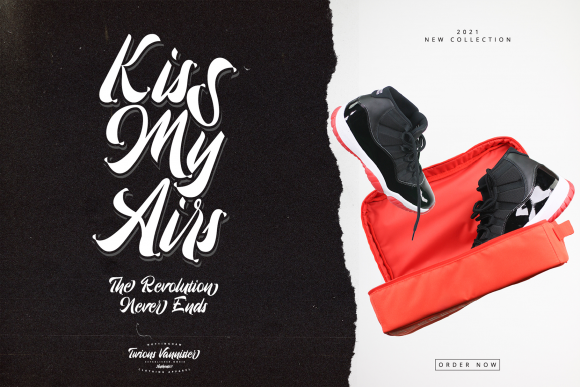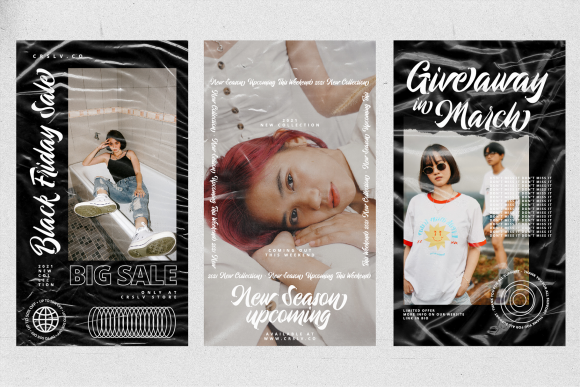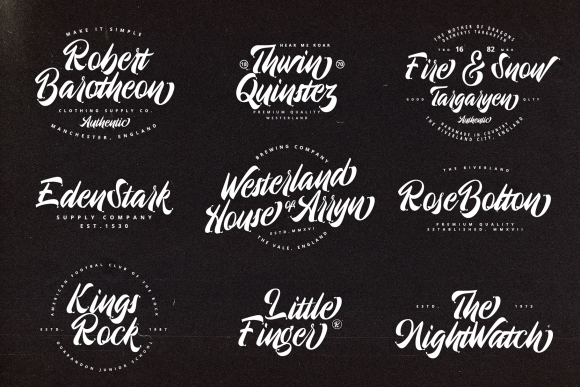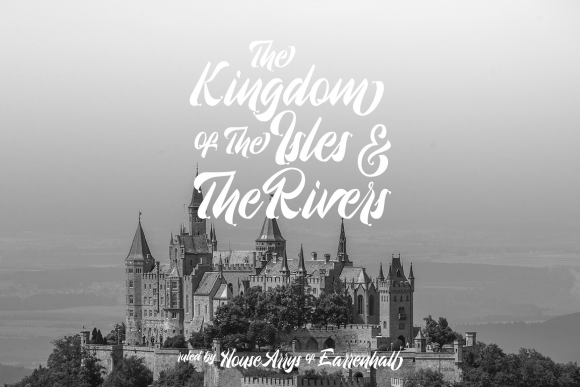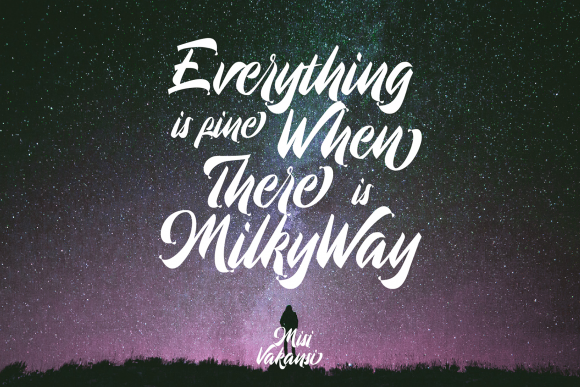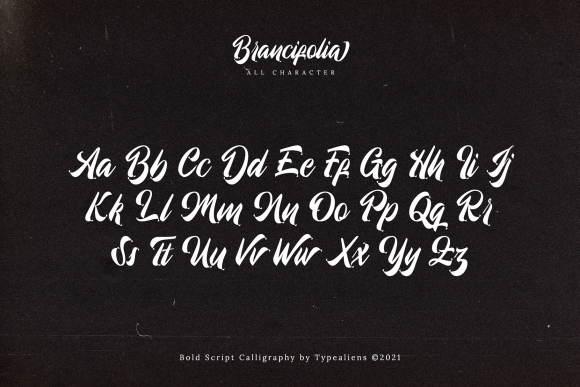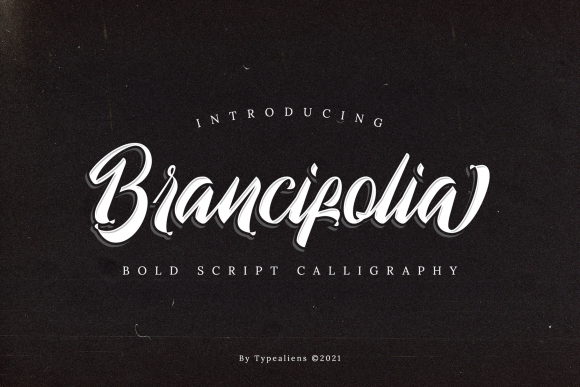
Introducing Brancifolia Font: A Bold Script Font with a Nostalgic Twist
Are you tired of using the same old fonts in your designs? Look no further than Brancifolia, a bold script font that’s sure to add a touch of nostalgia and personality to your work. With its unique features and PUA encoding, Brancifolia is the perfect choice for designers and crafters looking to take their designs to the next level.
What is Brancifolia Font?
Brancifolia is a bold script font that exudes confidence and dynamism. Its unique feature lies in the distinctive stroke endings, which give it a one-of-a-kind look that’s sure to grab attention. Whether you’re working on a branding project, a craft, or a digital design, Brancifolia is the perfect choice for adding a touch of elegance and sophistication.
Key Features of Brancifolia Font
- Bold and Dynamic: Brancifolia is a bold script font that’s designed to make a statement. Its confident and dynamic look makes it perfect for headlines, titles, and other design elements where you want to grab attention.
- Unique Stroke Endings: The distinctive stroke endings of Brancifolia give it a unique and nostalgic look that’s sure to add character to your designs.
- PUA Encoded: Brancifolia is PUA (Private Use Area) encoded, which means you can access all of the glyphs and swashes with ease. This makes it easy to customize your designs and add your own personal touch.
Why Choose Brancifolia Font?
So why choose Brancifolia font for your next design project? Here are just a few reasons:
- Add Nostalgic Character: Brancifolia has a unique nostalgic look that’s sure to add character to your designs. Whether you’re working on a vintage-inspired project or just want to add a touch of elegance, Brancifolia is the perfect choice.
- Stand Out from the Crowd: With its bold and dynamic look, Brancifolia is sure to help your designs stand out from the crowd. Whether you’re working on a branding project or a digital design, Brancifolia is the perfect choice for making a statement.
- Easy to Use: Brancifolia is PUA encoded, which makes it easy to access all of the glyphs and swashes. This means you can customize your designs with ease and add your own personal touch.
How to Use Brancifolia Font in Your Designs
Using Brancifolia font in your designs is easy. Here are a few tips to get you started:
- Pair it with Other Fonts: Brancifolia looks great when paired with other fonts. Try pairing it with a clean sans-serif font for a bold and modern look, or with a vintage-inspired font for a more nostalgic feel.
- Experiment with Swashes: Brancifolia has a range of swashes and glyphs that you can use to customize your designs. Experiment with different combinations to find the look that works best for your project.
- Use it for Headlines and Titles: Brancifolia is perfect for headlines and titles, where its bold and dynamic look can really make an impact.
Brancifolia font is a bold script font that’s sure to add a touch of nostalgia and personality to your designs. With its unique features and PUA encoding, it’s the perfect choice for designers and crafters looking to take their designs to the next level. Whether you’re working on a branding project, a craft, or a digital design, Brancifolia is the perfect choice for making a statement.